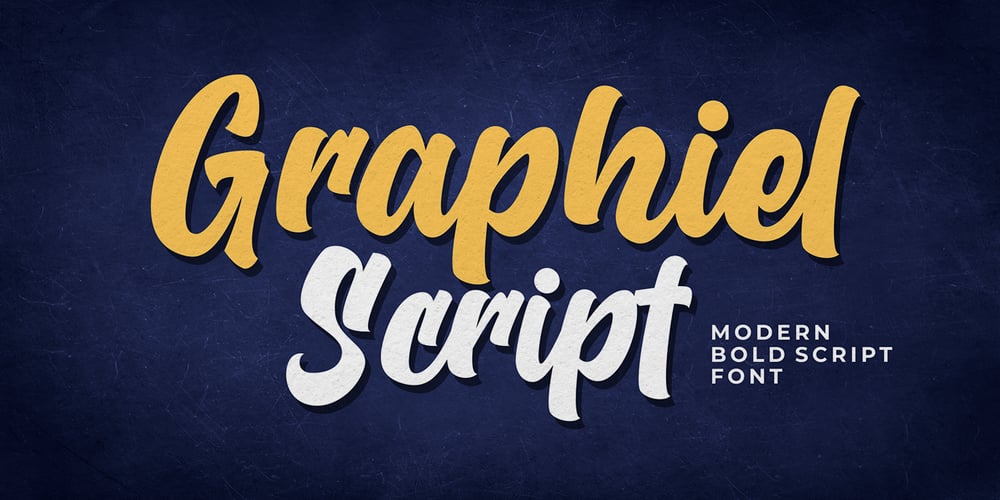
Graphiel Script
Graphiel Script font
Graphiel Script Font Family was designed by Icep Anwar Fadhil and published by Figuree Studio. Graphiel Script contains 1 styles and family package options. Graphiel Script is a modern bold script font that exudes confidence and sophistication. With its sleek and stylish letterforms, this font adds a touch of elegance to any design project. The bold strokes and fluid curves of Graphiel Script create a sense of dynamism and energy, making it perfect for attention-grabbing headlines, logos, branding materials, and more. Whether used for formal invitations or trendy social media graphics, this font captivates with its contemporary aesthetic and versatility. Graphiel Script strikes the perfect balance between modernity and classic script charm, allowing you to make a bold statement with your typography while maintaining a sense of refinement.